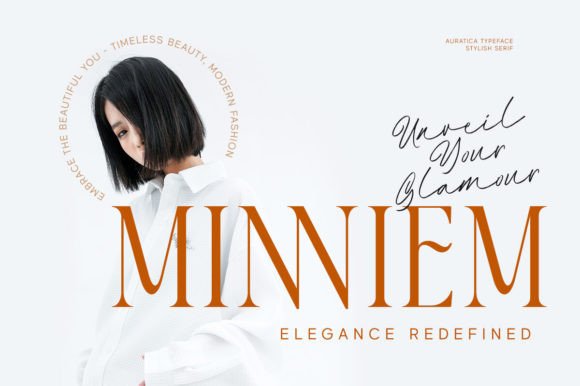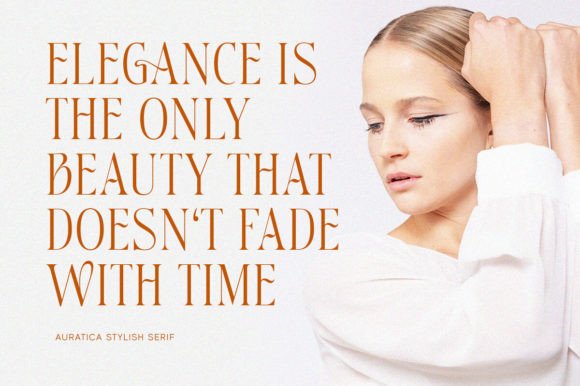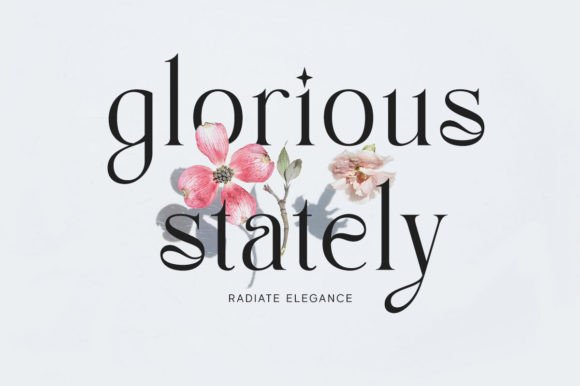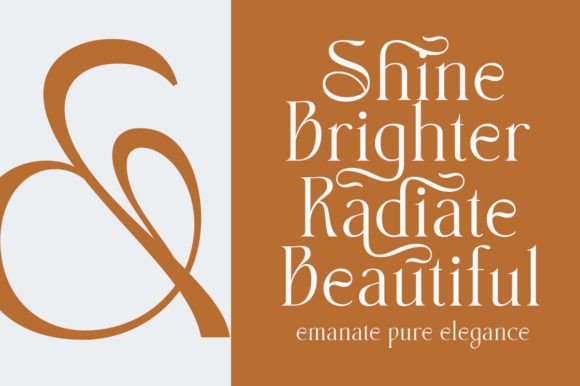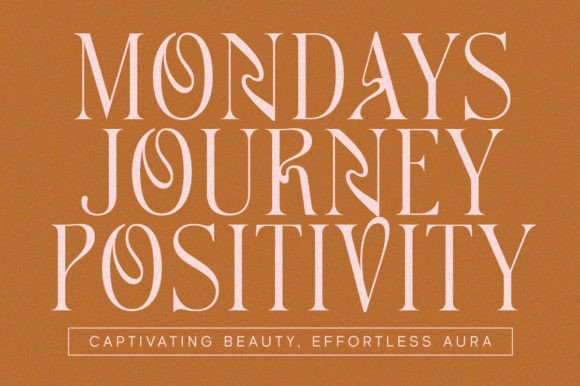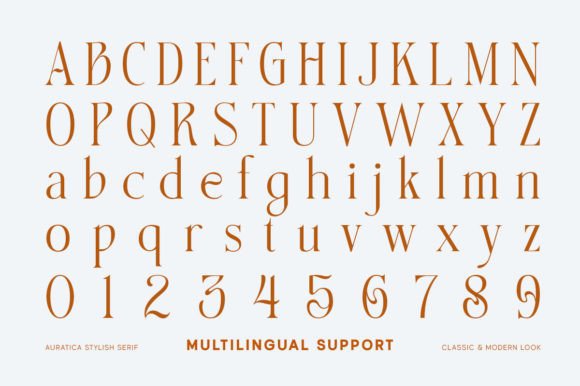
A New Dimension in Typography: Unveiling the Auratica Typeface Font
Have you ever found yourself lost in the depths of a design project, struggling to find that perfect font that elevates your vision to new heights? That’s exactly where the Auratica Typeface Font comes in – a stylish new serif font that allows you to push the boundaries of creativity and experiment with alternative characters. This versatile font is designed to add a touch of elegance and sophistication to any project, from logos to invitations, and everything in between.
For designers, the Auratica Typeface Font offers endless possibilities for expression and innovation. With its perfect blend of formality and whimsy, this font is sure to become a go-to choice for those seeking to make a lasting impression. Whether you’re working on a high-end fashion campaign or a romantic wedding invitation, the Auratica Typeface Font is the perfect tool to help you bring your vision to life.
Auratica Typeface Font Key Features
- Font Family: Auratica
- Unique Characteristics: Elegant, modern design with a unique blend of classic and futuristic elements, suitable for various design projects, including branding, advertising, and editorial content
Auratica Typeface Font Review
I recently had the chance to work with the Auratica Typeface Font, and I must say it’s a mixed bag. On one hand, ✨ the elegant, minimalist design is quite striking. The font’s clean lines and subtle curves make it perfect for creating a sense of sophistication and refinement in any design project.
✨ The font’s versatility is also a major plus. It works well in a variety of contexts, from body text to headlines, and can be easily paired with other fonts to create a unique look.
However, ⚠️ I did encounter some limitations while working with the font. Firstly, the font’s limited character set can be a problem for designers who need to work with languages that use non-Latin scripts.
- ⚠️ The font’s OpenType features are also not as robust as I would have liked, which can limit the level of customization and control.
Overall, the Auratica Typeface Font is a solid choice for designers who are looking for a elegant, minimalist font. However, it may not be the best option for designers who need a font with a wide range of features and customization options.
Tips for Getting the Most Out of Auratica Typeface Font
Use Auratica Typeface Font for headings and titles to add a touch of elegance to your designs. Experiment with different font sizes and colors to create visual hierarchy. Combine Auratica Typeface Font with other fonts to create a unique and eye-catching design.
Auratica Typeface Font is ideal for:
- Brand logos and identity design
- Marketing and advertising materials
Alternatives to Auratica Typeface Font
Playfair Display is a luxurious and elegant serif font ideal for high-end branding, luxury goods, and fine printing. It features a mix of classical and modern elements, making it perfect for projects that require sophistication and refinement. In comparison to Auratica, Playfair Display has a more classical feel, while Auratica is more modern and minimalist.
Great Vibes is a modern and elegant script font suitable for creative projects, packaging, and advertising. Its flowing lines and cursive feel make it perfect for capturing a sense of freedom and playfulness. Unlike Auratica, Great Vibes has a more fluid and dynamic feel, making it ideal for projects that require a sense of movement and energy.